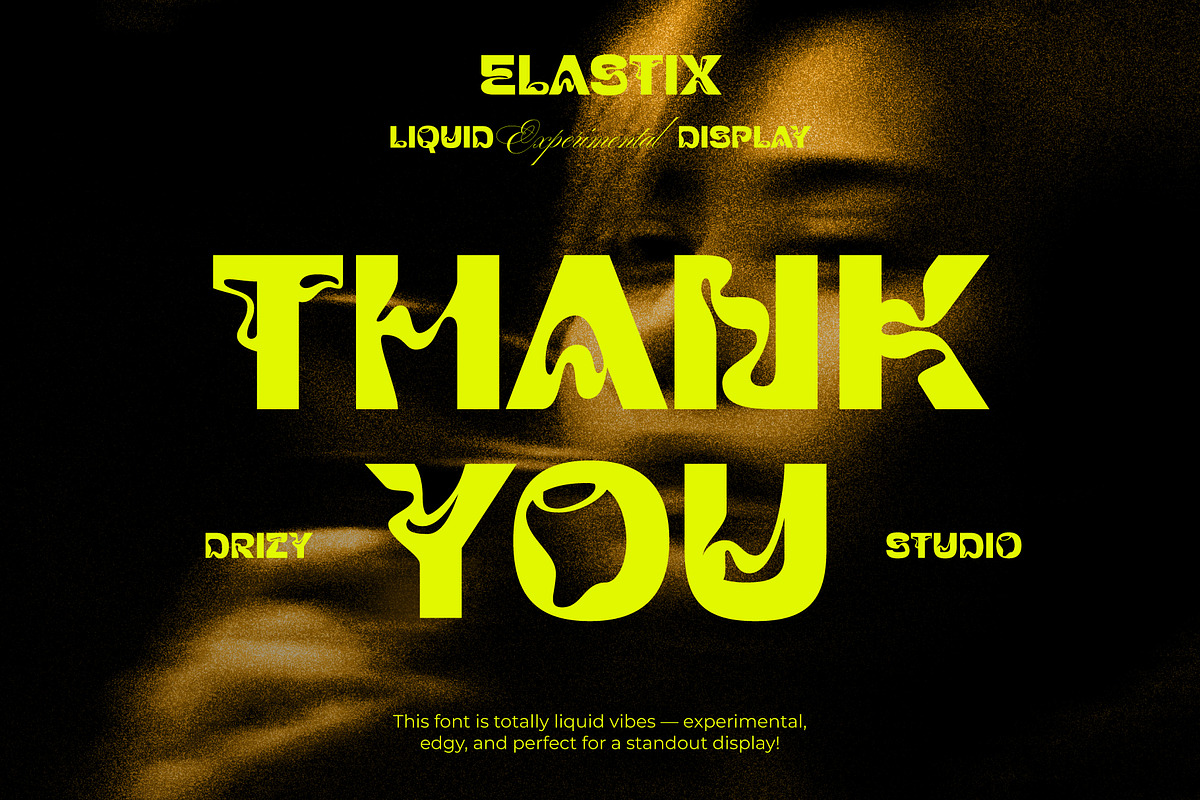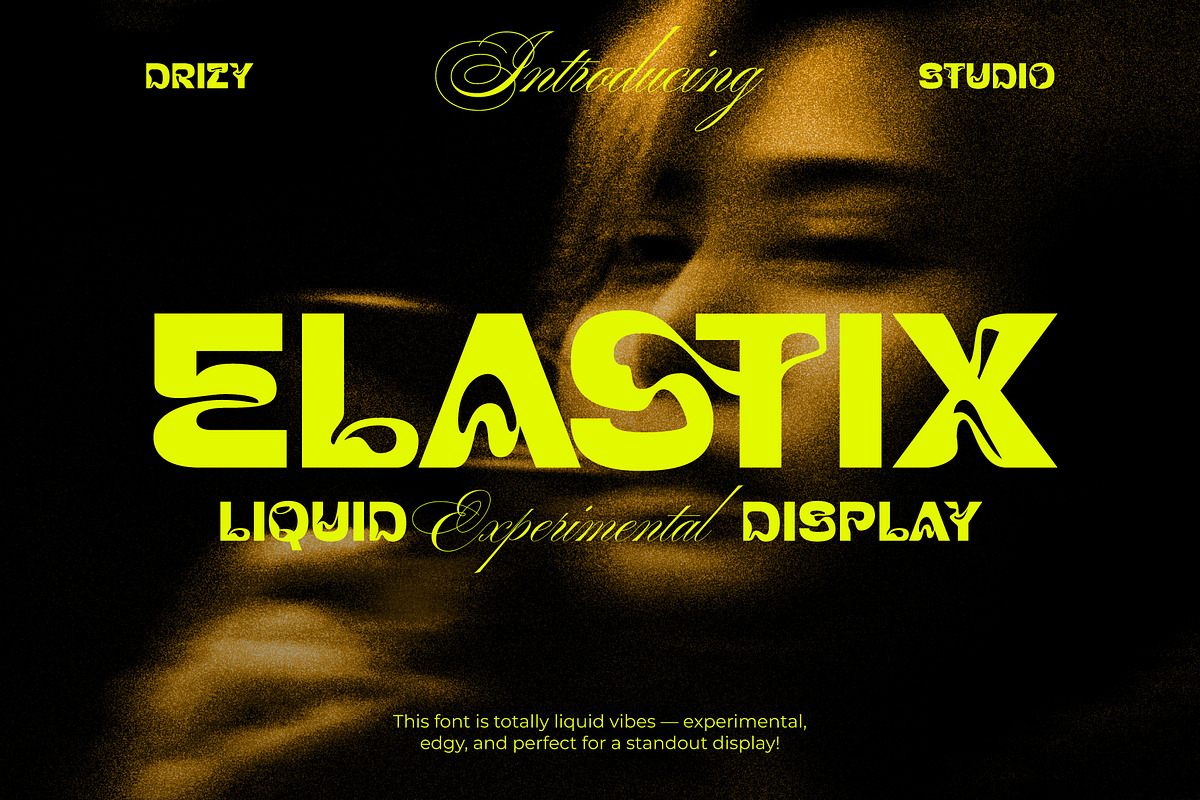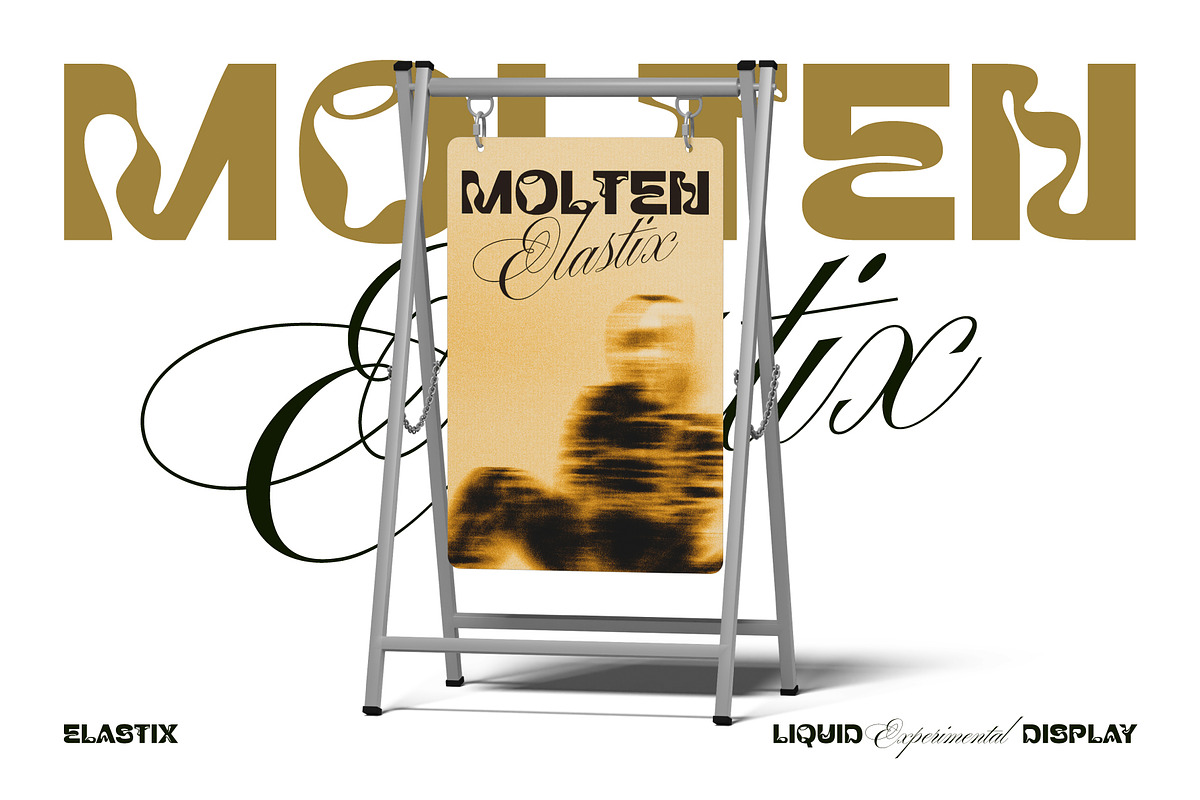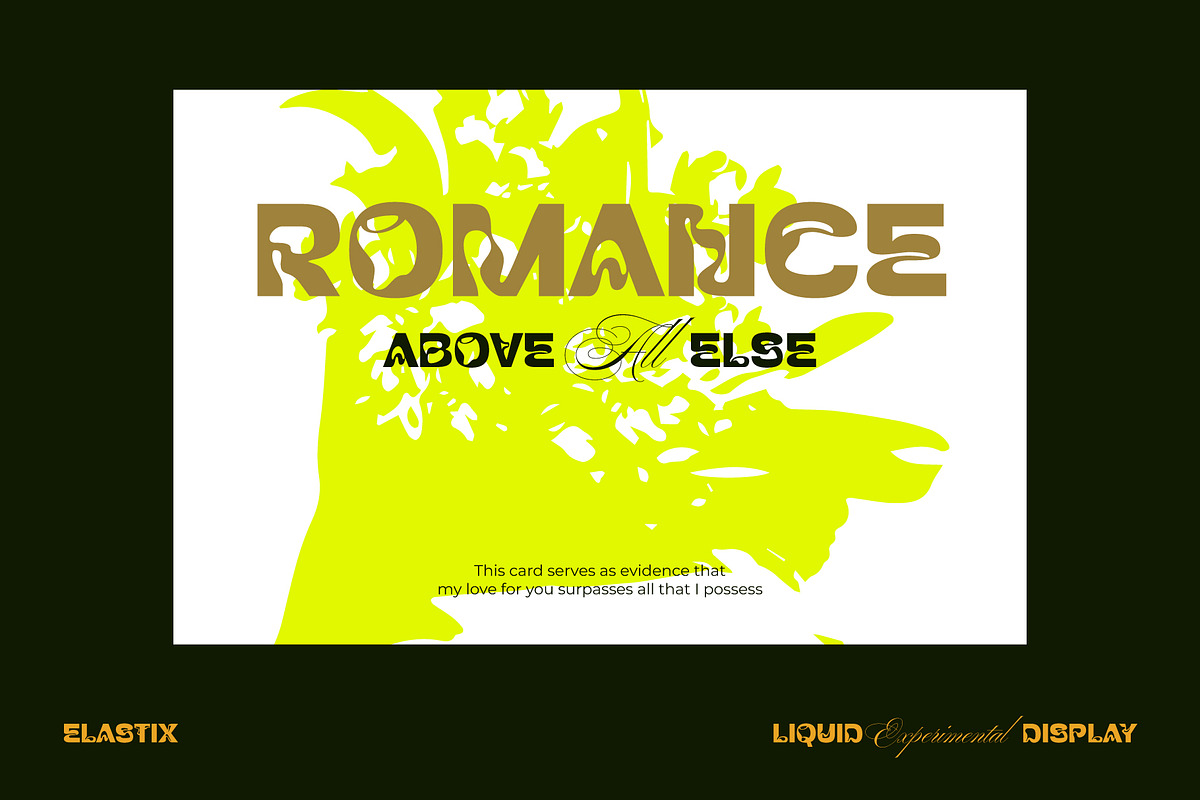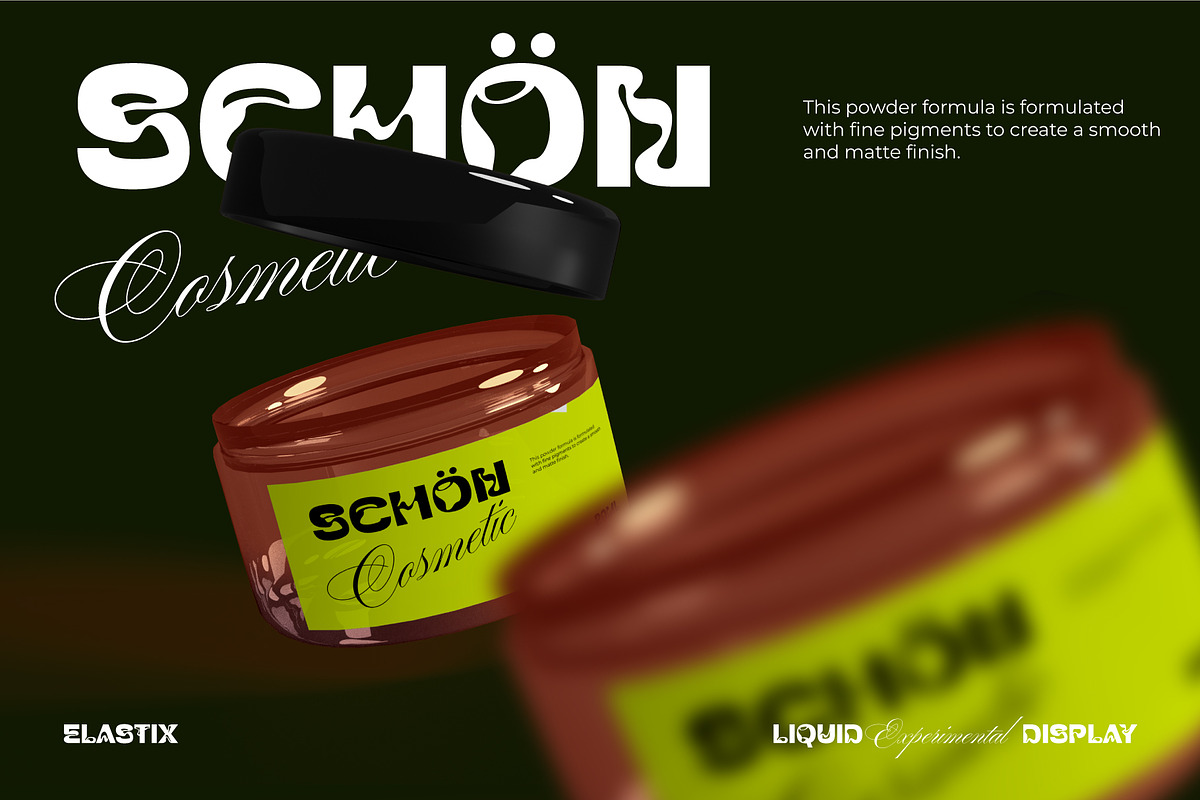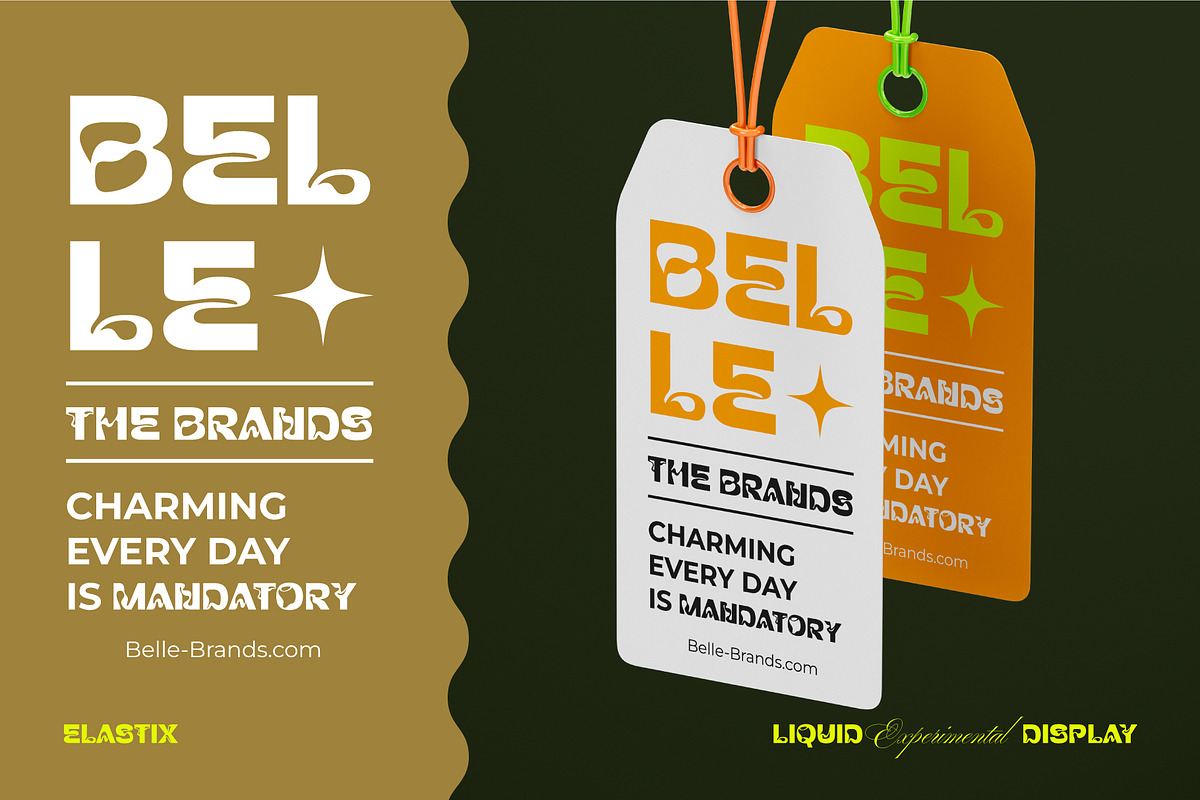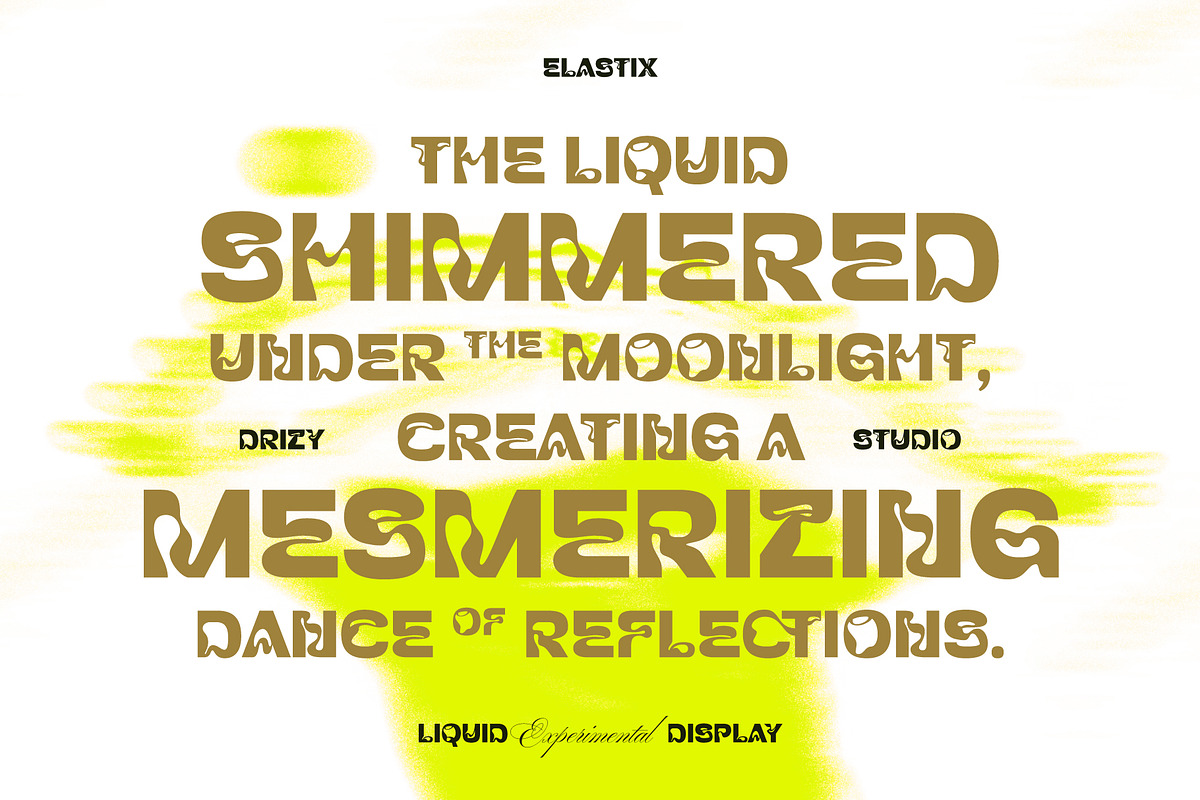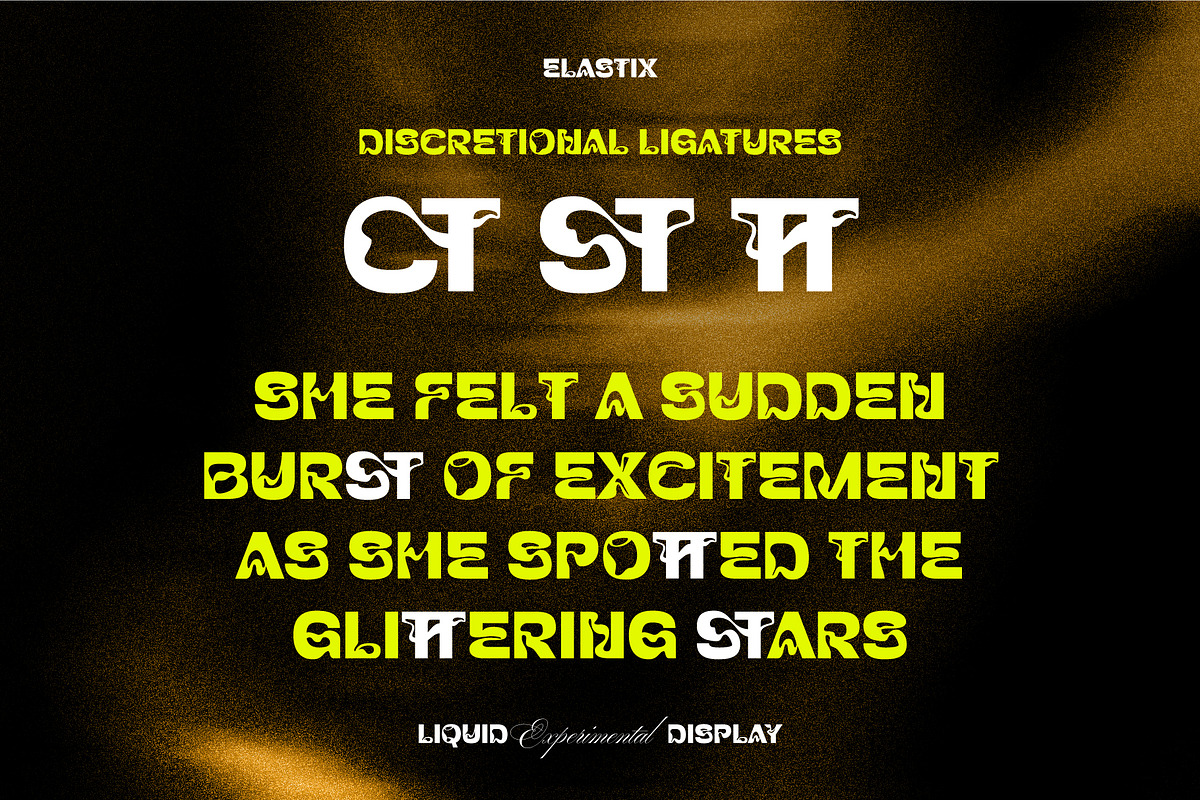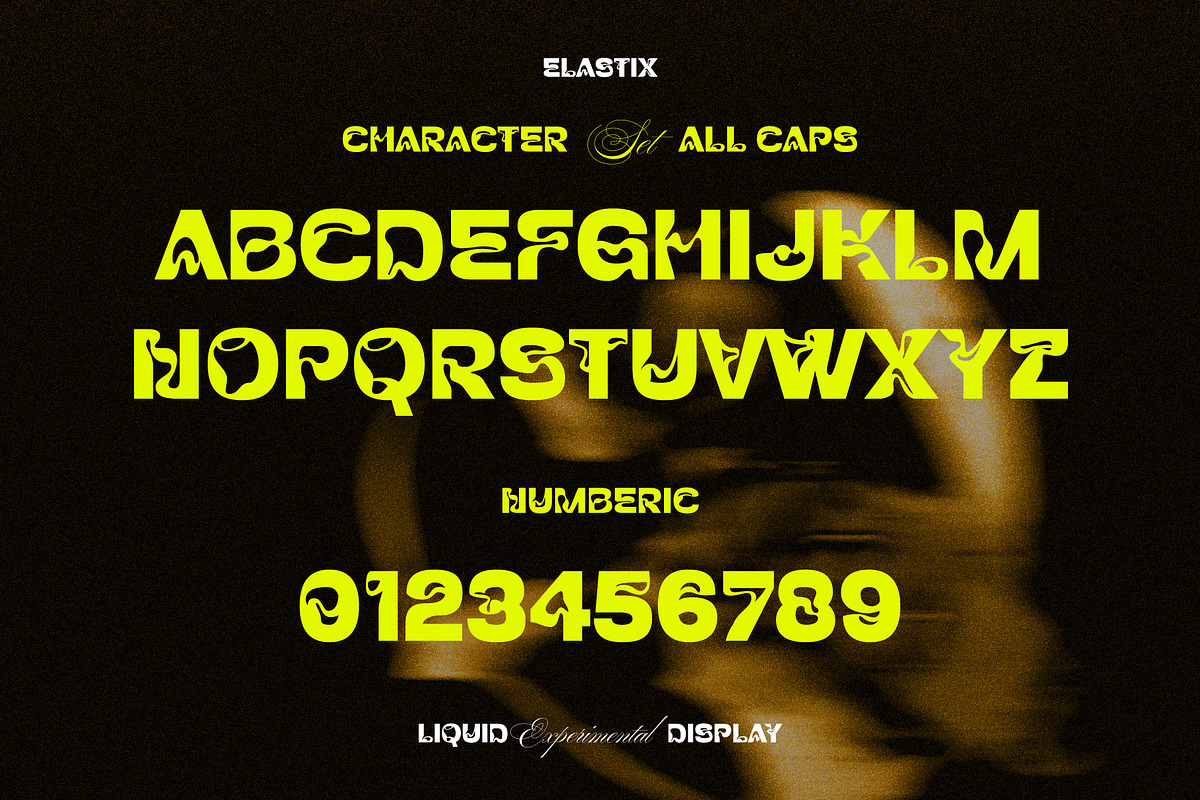
Elastix - Liquid Experimental Font
Elastix is a mesmerizing liquid experimental font that pushes the boundaries of traditional typography, offering a Collide - Experimental and dynamic visual experience. Designed to break away from conventional letterforms, this font exudes a sense of fluidity and elasticity, capturing the essence of liquid motion.
Elastix features: All Caps Punctuation & Numbers Multilingual Ligatures
Elevate and explore the design possibilities with this Liquid font!